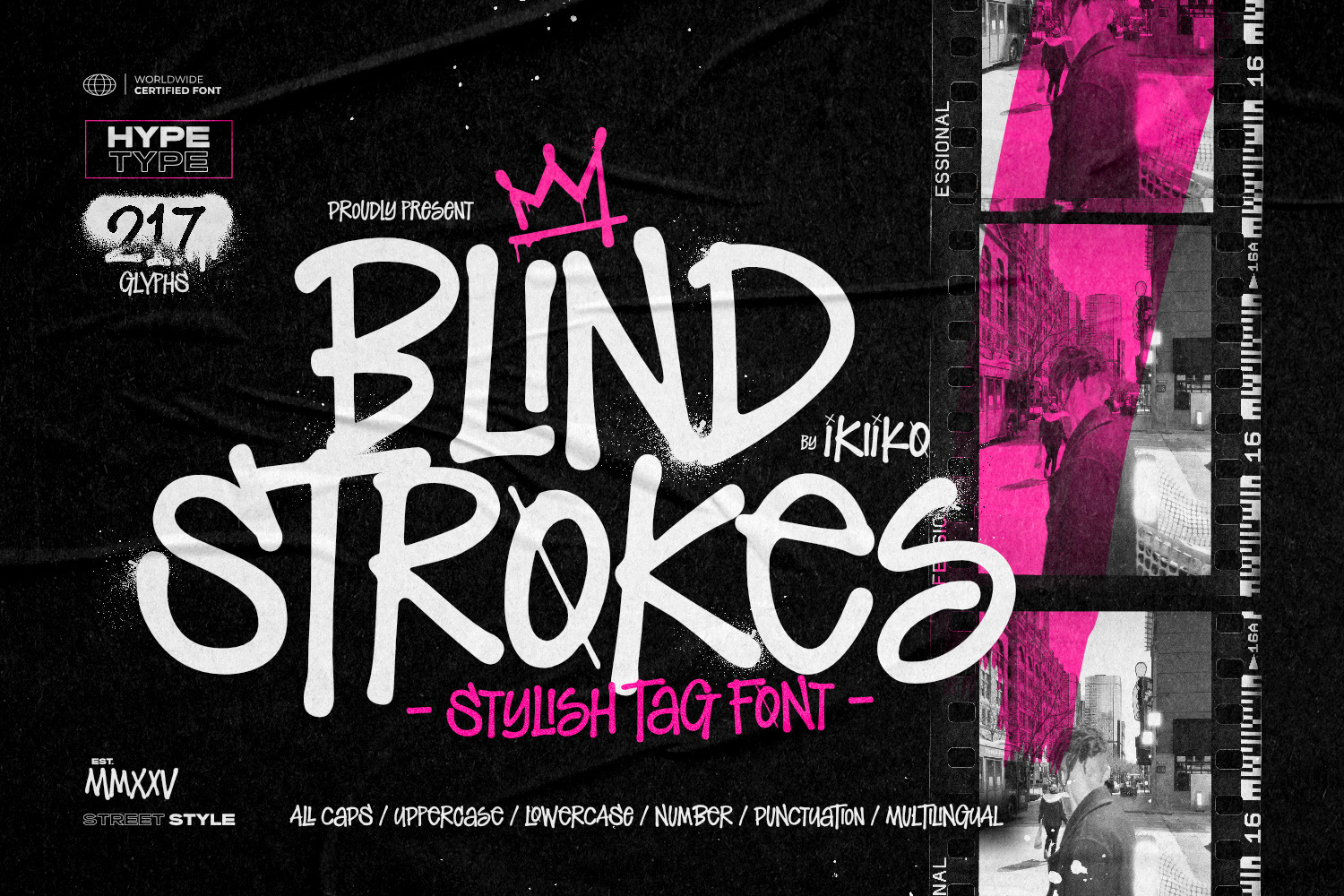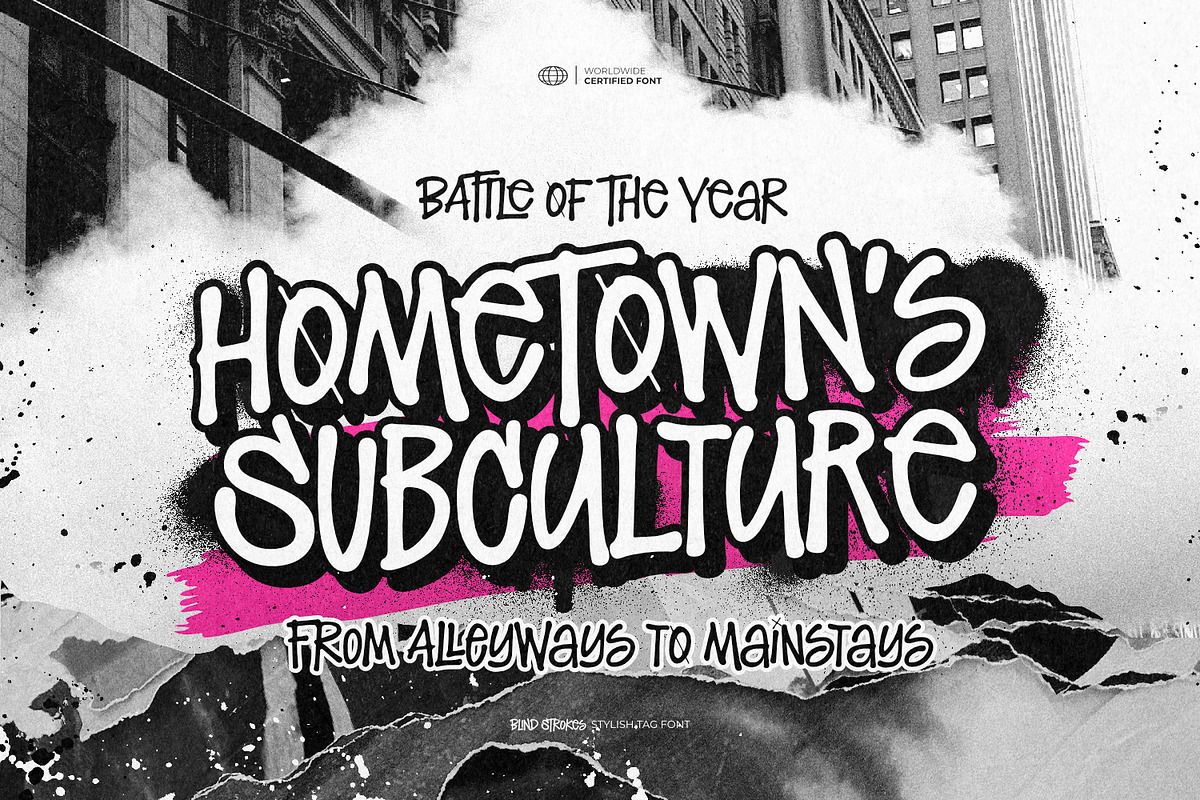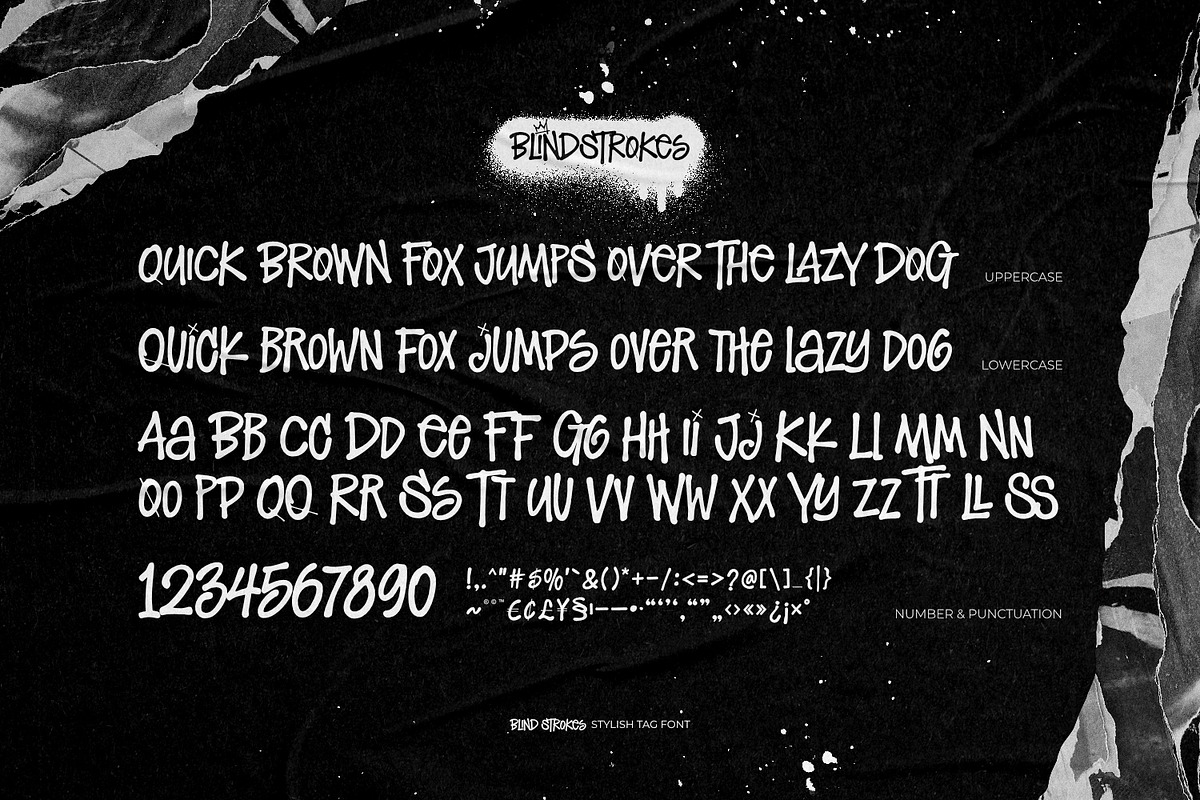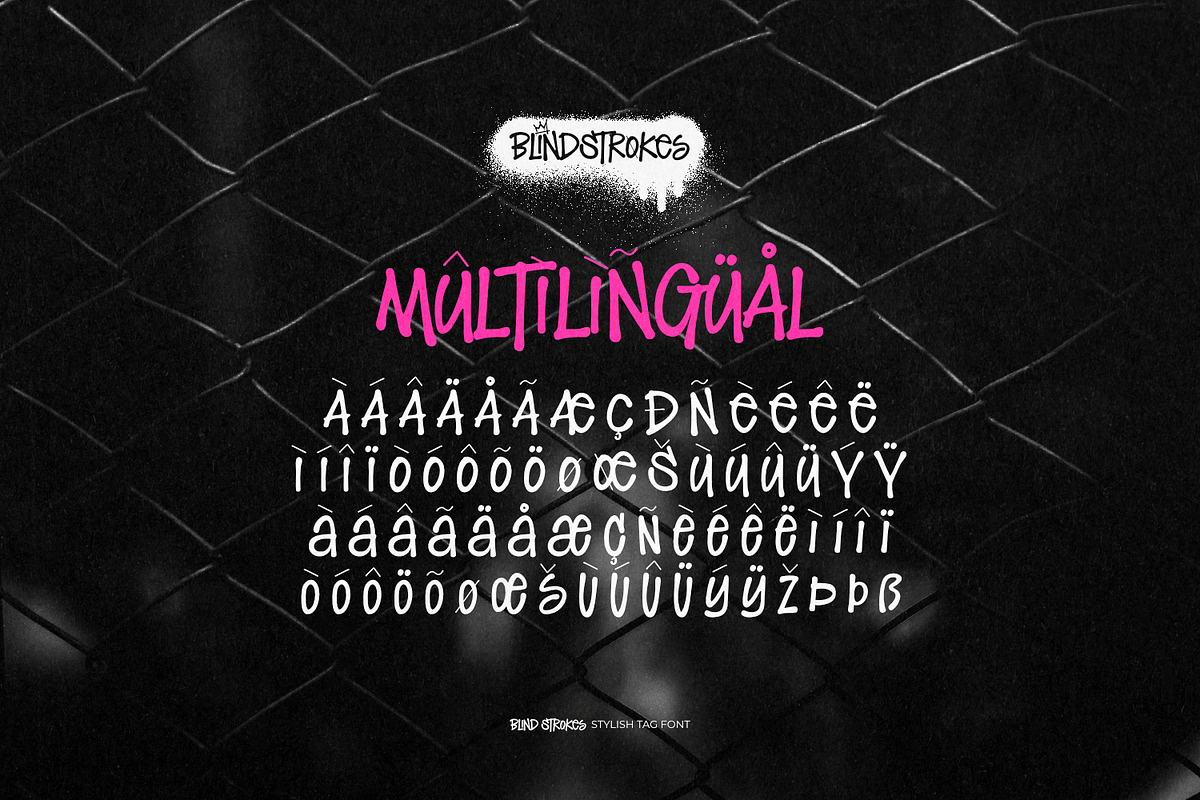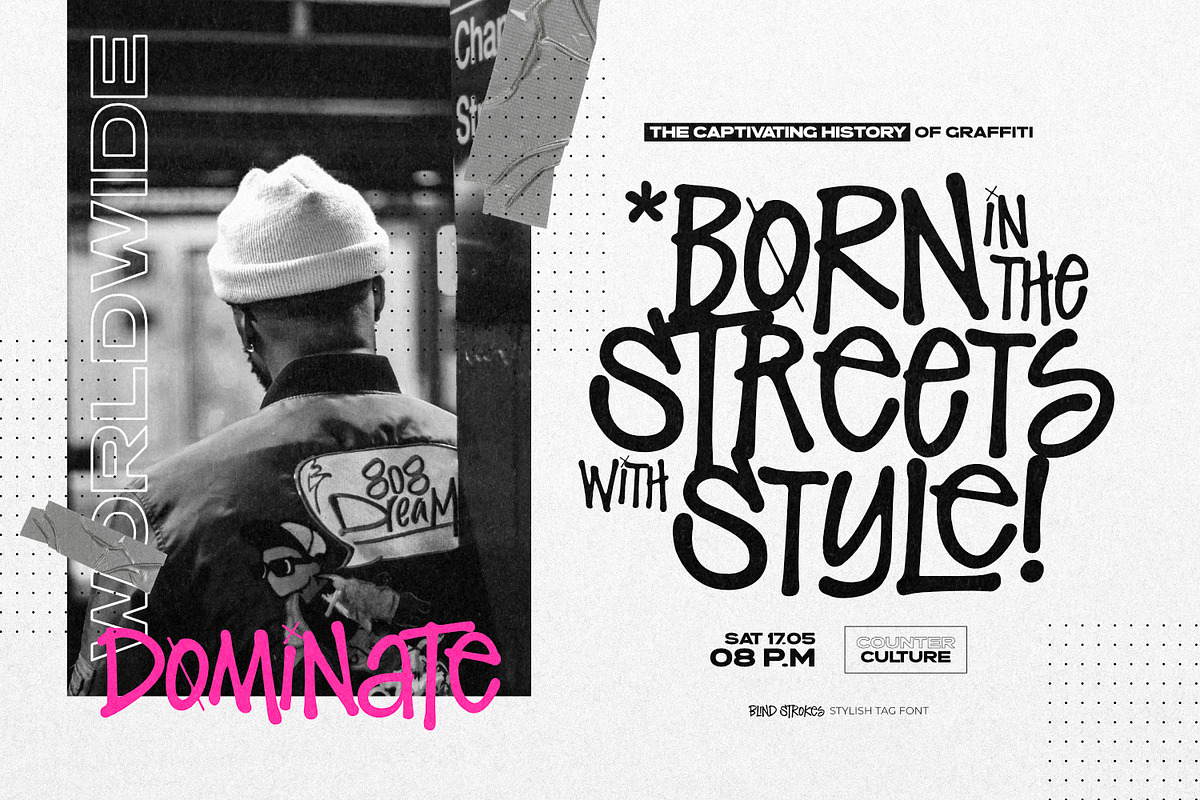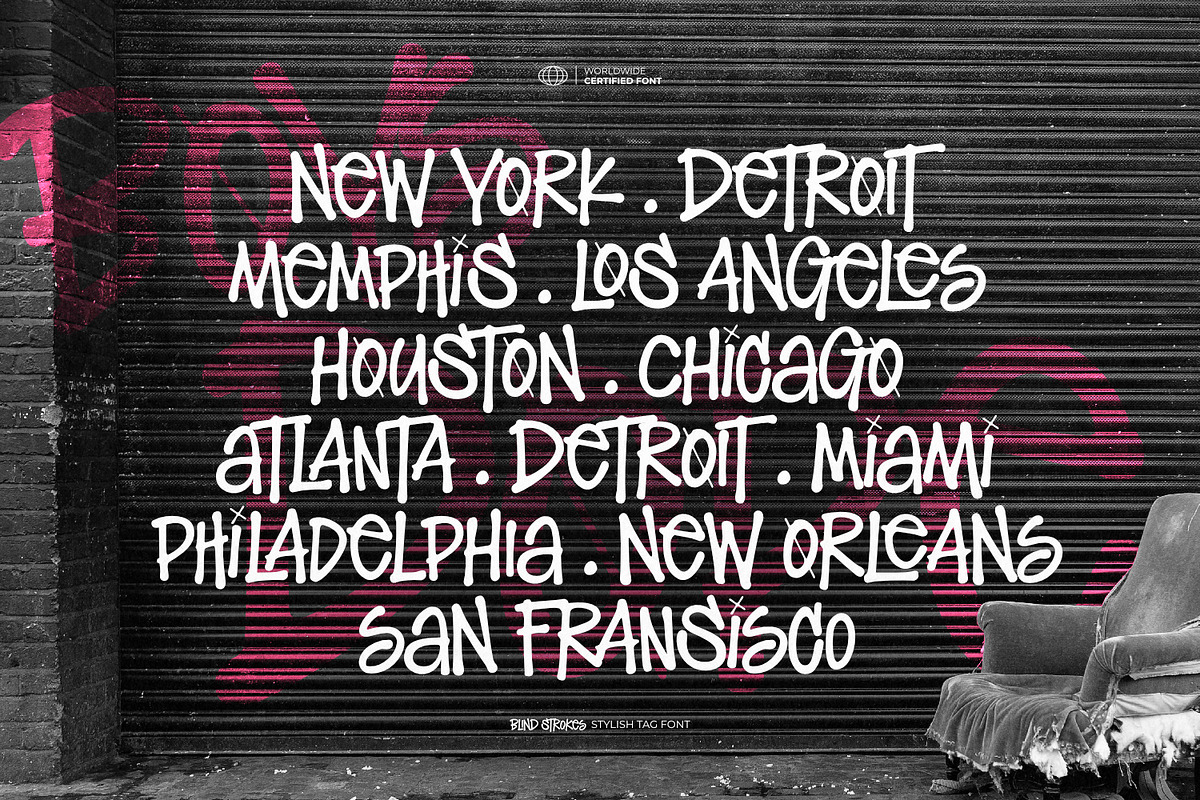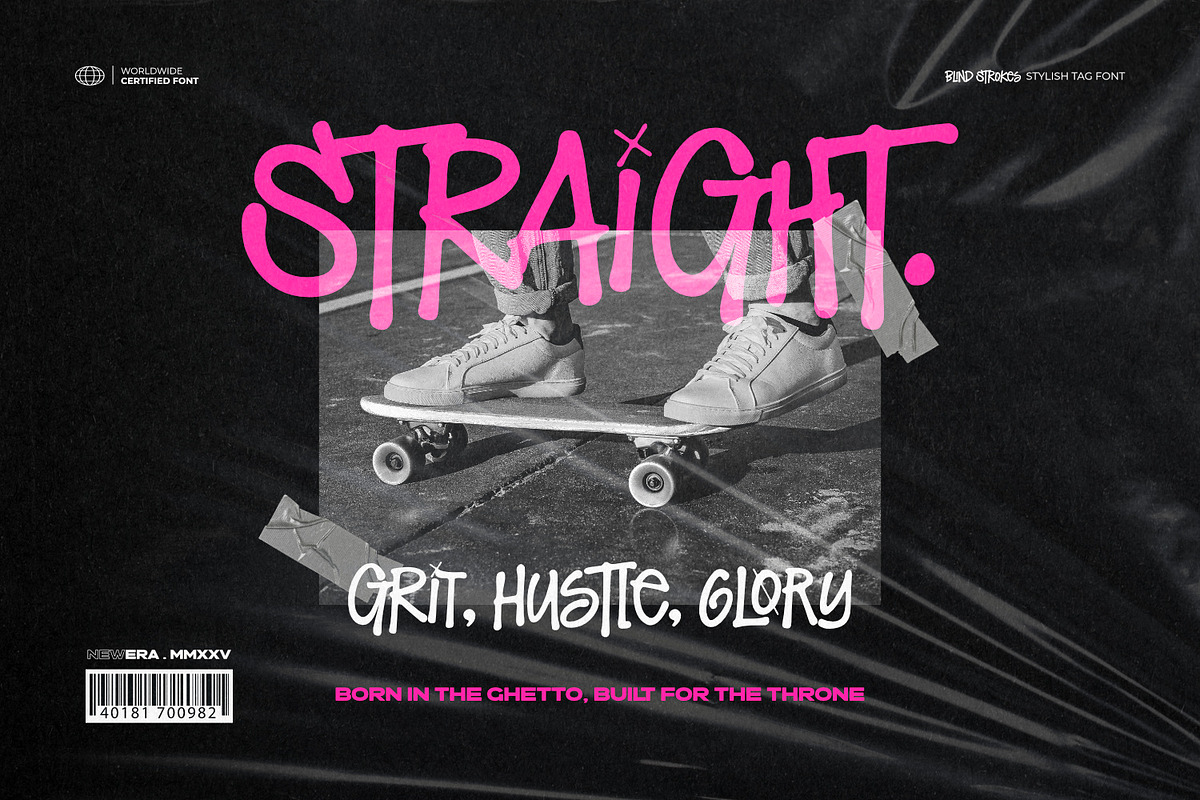
Blind Strokes - Stylish Tag Font
Proudly Present Blind Strokes - Stylish Tag Font, created by ikiiko
Blind Strokes, the ultimate stylish graffiti tag font that brings raw urban energy straight to your screen. Inspired by the wild spirit of the Bronx, this font is all about that street culture—fast, expressive, and untamed. With its rough handwriting style, Blind Strokes drips with attitude, perfect for tagging up digital city walls or repping the heartbeat of the neighborhood. Whether you're crafting streetwear designs, bold branding, or gritty posters, this font screams style and raw expression.
This typeface is perfect for an poster, streetwear, logotype, magazine layout, fashion brand, quotes, or simply as a stylish text overlay to any background image.